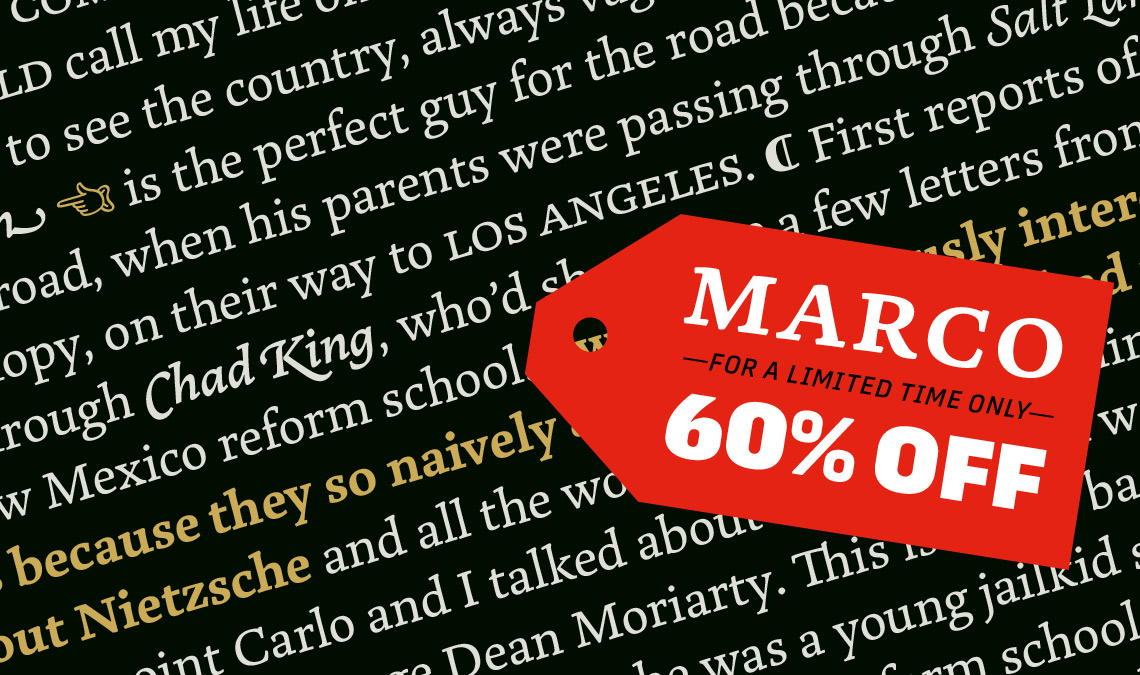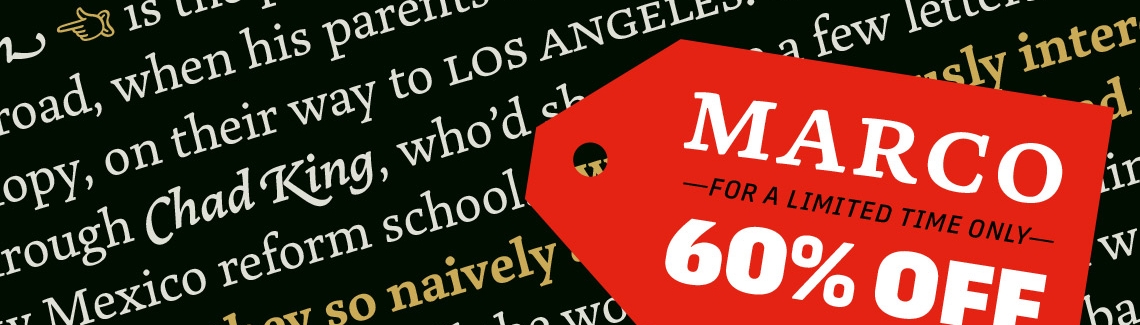
Marco is a lively, humanist textface with a touch of informality. Marco’s strong calligraphic disposition, angled asymmetric baseline serifs, and slightly flared stems lead the reader’s eye up and to the right for effortless reading. Marco therefore is a mature serif whose lively and somewhat informal style is an ideal counterpart to its careful and ingenious crafting.
Marco’s feature set is enormous — over 1,900 characters per style and almost 2,600 in the italics — and the type family is available in regular, semibold, and bold, with their matching Italics. The complete Marco family, along with our entire catalogue, has been optimised for today’s varied screen uses.